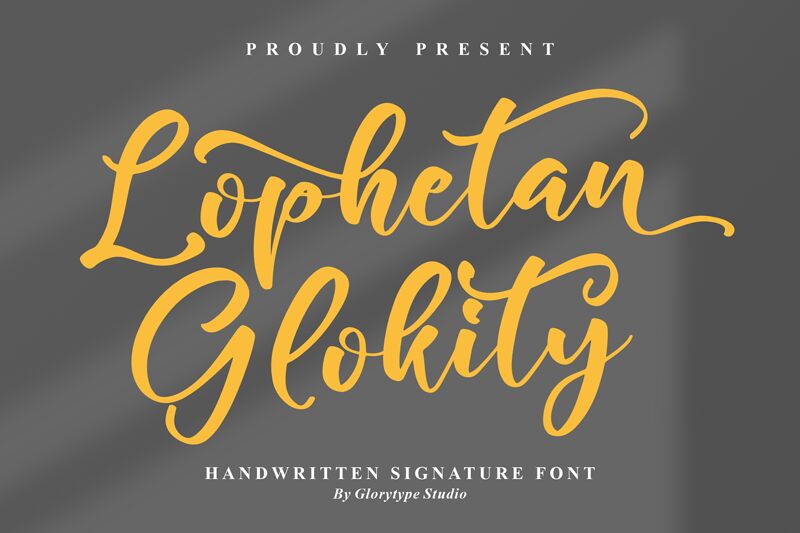
Lophetan Glokity
Lophetan Glokity, crafted by Letterena Studios, exudes a personal touch with its handwritten style that appears to dance across the page. This font embodies an artistic flair, with each stroke suggesting the carefree elegance of a skilled calligrapher's hand. The characters boast graceful curves and a fluidity that convey warmth and approachability.
Its aesthetic charm lies in the organic variability of its letters, evoking a sense of bespoke craftsmanship. Lophetan Glokity is particularly suited for projects that require an intimate, handcrafted feel—such as wedding invitations, greeting cards, or branding for boutique businesses—adding a stroke of sophistication and personality to any design piece it graces.